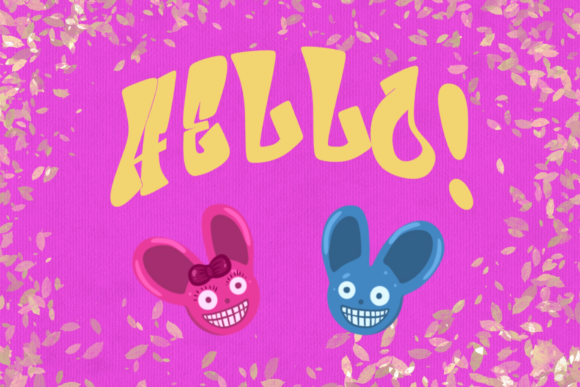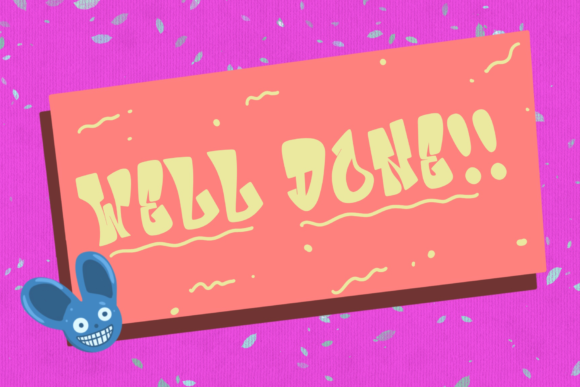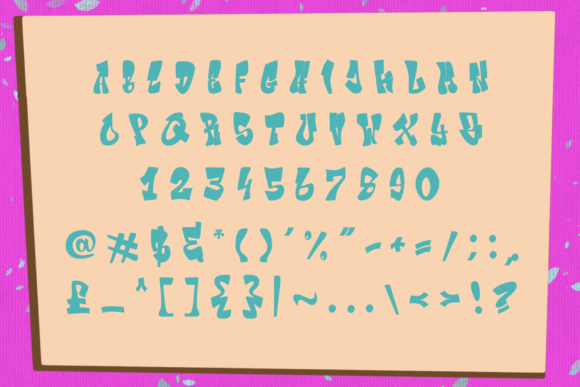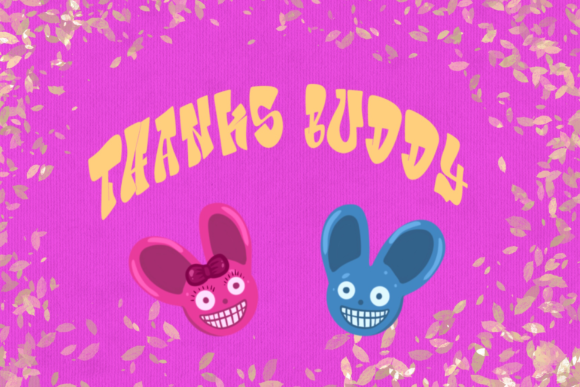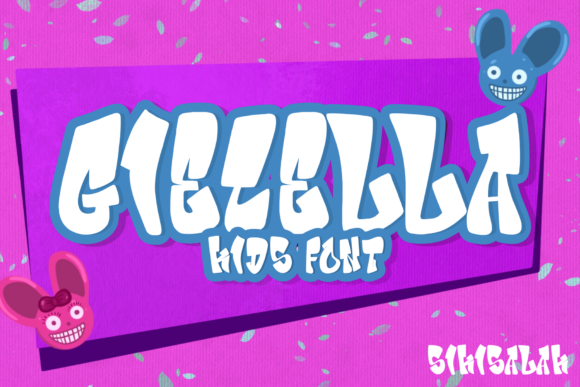
Giecella Kids Font: The Perfect Choice for Children’s Activities and School Projects
Are you looking for a font that embodies playfulness and authenticity for your children’s activity or school project? Look no further than Giecella Kids Font! This cartoon-like display font is designed to bring a sense of fun and excitement to any project, making it the perfect choice for designers, crafters, and educators alike.
What is Giecella Kids Font?
Giecella Kids Font is a unique and creative font that is specifically designed to capture the imagination of children. Its cartoon-like style is reminiscent of classic children’s books and TV shows, making it an instant favorite among kids and adults alike. The font is highly legible and easy to read, making it perfect for use in a variety of applications, from posters and flyers to worksheets and activity sheets.
Key Features of Giecella Kids Font
- Playful and Authentic Design: Giecella Kids Font features a playful and authentic design that is sure to capture the attention of children and adults alike.
- Cartoon-Like Style: The font’s cartoon-like style is reminiscent of classic children’s books and TV shows, making it a great choice for any project aimed at kids.
- Highly Legible: The font is highly legible and easy to read, making it perfect for use in a variety of applications.
- Versatile: Giecella Kids Font can be used in a variety of applications, from posters and flyers to worksheets and activity sheets.
Why Choose Giecella Kids Font?
So why choose Giecella Kids Font for your children’s activity or school project? Here are just a few reasons:
- Adds a Touch of Fun and Personality: Giecella Kids Font adds a touch of fun and personality to any project, making it more engaging and appealing to kids.
- Perfect for Children’s Activities: The font is specifically designed for use in children’s activities, making it a great choice for worksheets, activity sheets, and other educational materials.
- Great for School Projects: Giecella Kids Font is also a great choice for school projects, adding a touch of creativity and personality to presentations, posters, and other projects.
Design Tips and Inspiration
Here are a few design tips and inspiration ideas to help you get the most out of Giecella Kids Font:
- Pair with Bright Colors: Pair Giecella Kids Font with bright and bold colors to create a fun and playful look.
- Use in Combination with Other Fonts: Use Giecella Kids Font in combination with other fonts to create a unique and interesting look.
- Add Fun and Playful Graphics: Add fun and playful graphics, such as cartoon characters or illustrations, to really make your project pop.
| Font Name | Giecella Kids Font |
| Author | sipanji figuree |
In conclusion, Giecella Kids Font is a fantastic choice for any children’s activity or school project. Its playful and authentic design, cartoon-like style, and high legibility make it the perfect font for designers, crafters, and educators alike. So why not give it a try and see the fun and playful results for yourself?